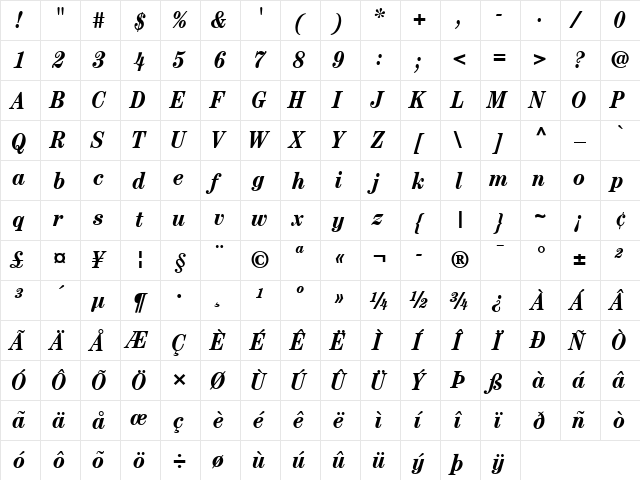
ITCCentury LT BookCond Bold Italic Font Preview
Design Context for ITCCentury LT BookCond Typeface
ITCCentury LT BookCond takes a measured approach to typography — its balanced proportions and neutral character make it a reliable workhorse for both digital and print work. Its italic angle brings a sense of urgency and motion to the letterforms. The heavy weight commands attention and anchors typographic hierarchies. The condensed width makes it efficient for tight spaces without sacrificing legibility.